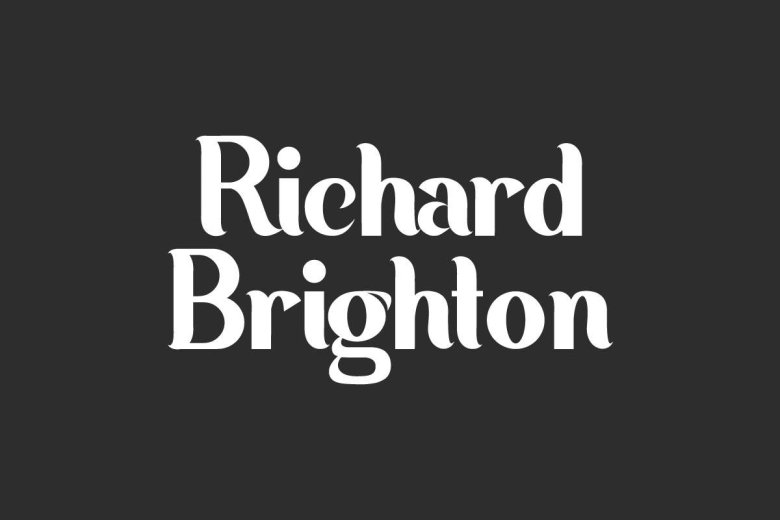
Richard Brighton Font
Richard Brighton is a stylish serif display font with casual yet attractive looks with two style options : Regular and Italic. The fonts can bring vintage and retro vibes that can be useful for many projects. This font is carefully crafted on each letter so we can make sure it looks good and delivers the perfect base case. Richard Brighton Font includes full set of Uppercase and lowercase Basic Characters, Numerals and Punctuation.
Also it contains ligatures on letters, to make it flowless characters to perfectly make awesome look that add more aesthetic fonts to perfect your extraordinary project. Richard Brighton will be great for beautiful spa, delicious food, fresh healthy, furniture interior, and fashion.
Richard Brighton Serif Display Font